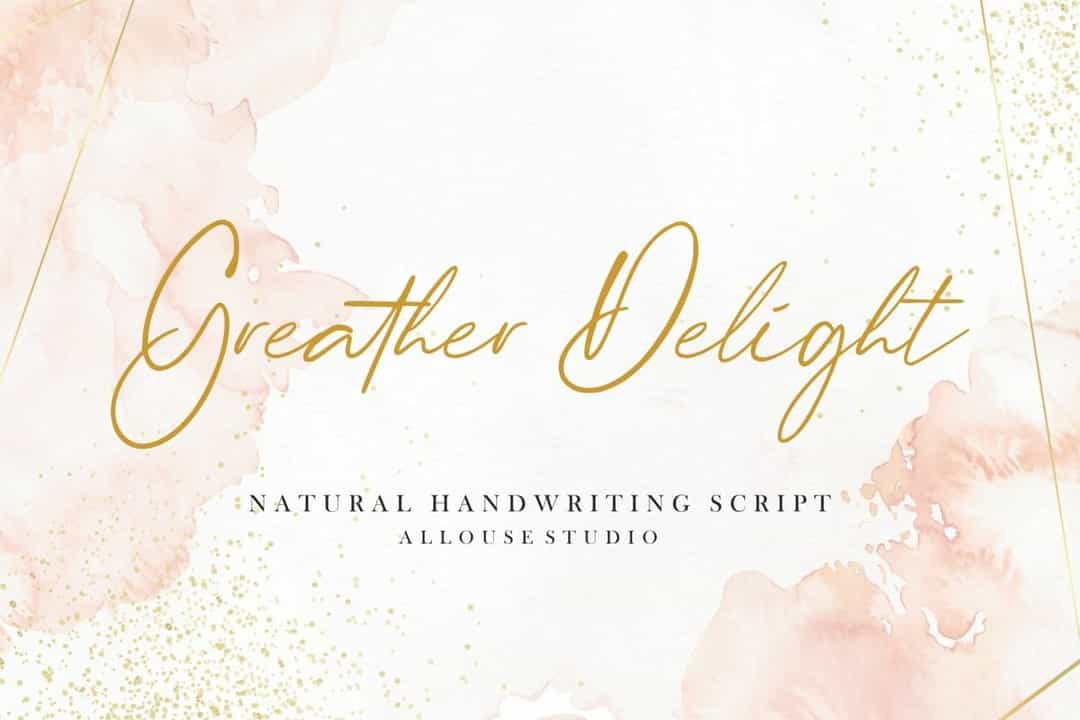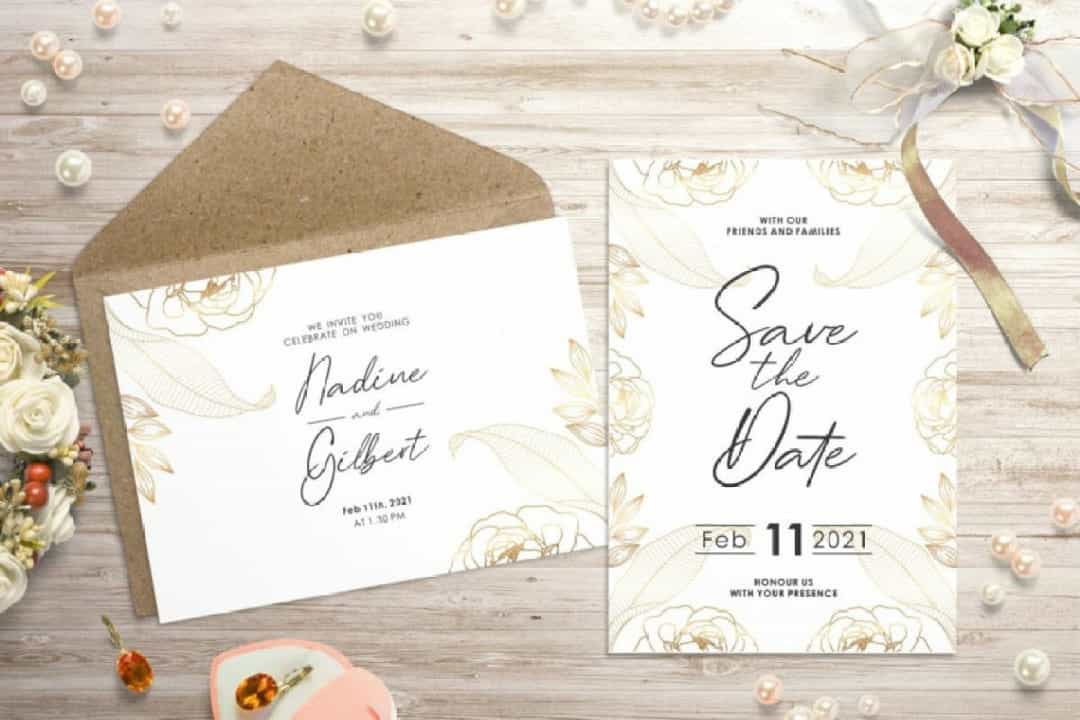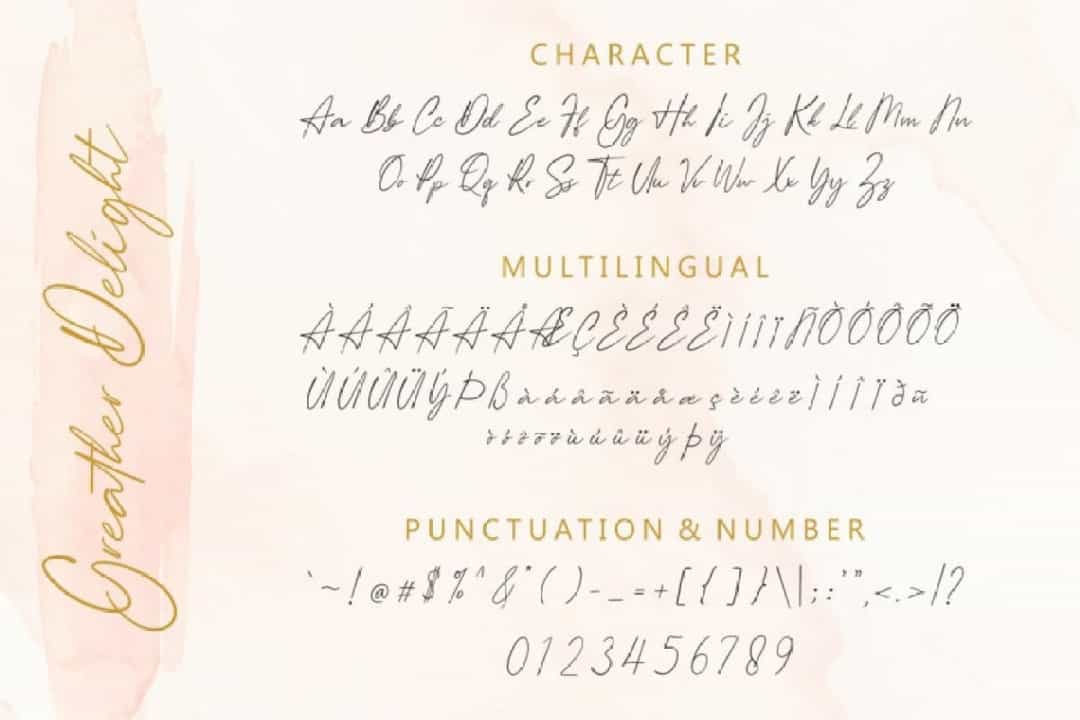
Greather Delight is one of the early display fonts first released in the year 2000 and has since been revised and expanded on one other occasion. One can switch off the tails effect by turning off ligatures within the application; additional language support has also been added in the recent past such as Vietnamese, Greek and Cyrillic.